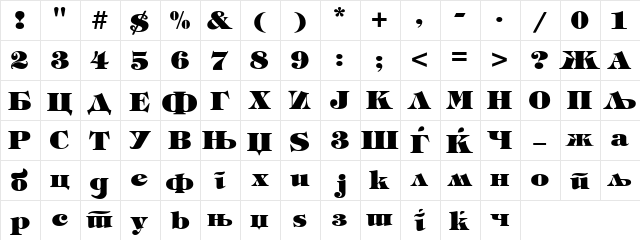
C_Tiffany-Heavy-Kir Bold
Design Context for C_Tiffany-Heavy-Kir Typeface
C_Tiffany-Heavy-Kir offers clean, dependable letterforms without strong stylistic allegiance, making it a practical choice for designers who need flexibility. The heavy weight commands attention and anchors typographic hierarchies.
Pro Tip: Use C_Tiffany-Heavy-Kir in both headline and body roles to test its range before committing to a single application.